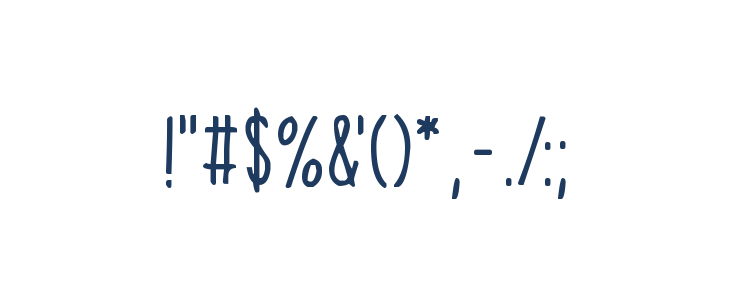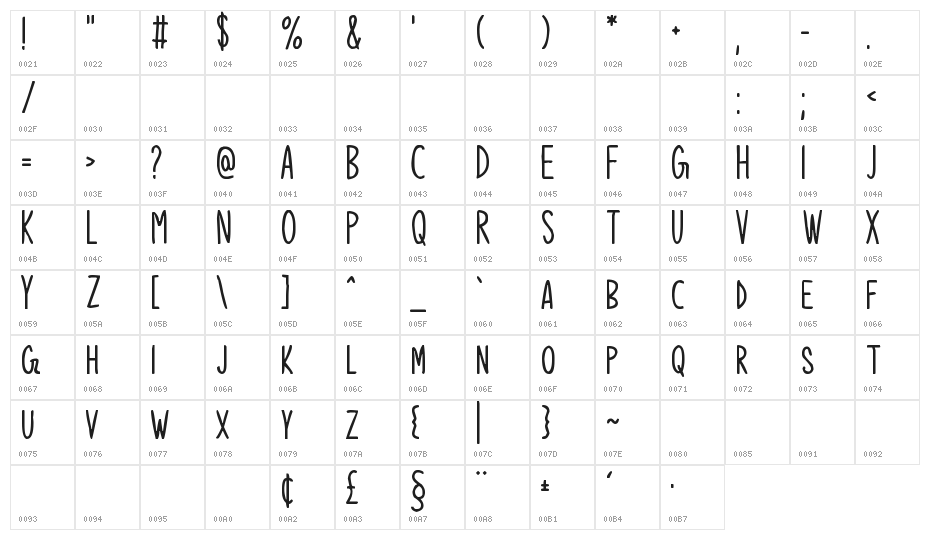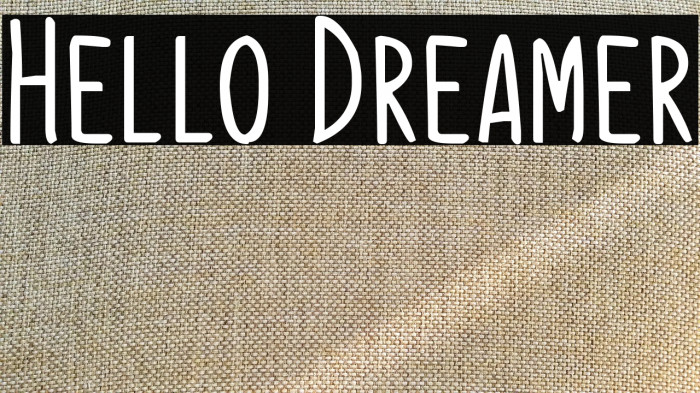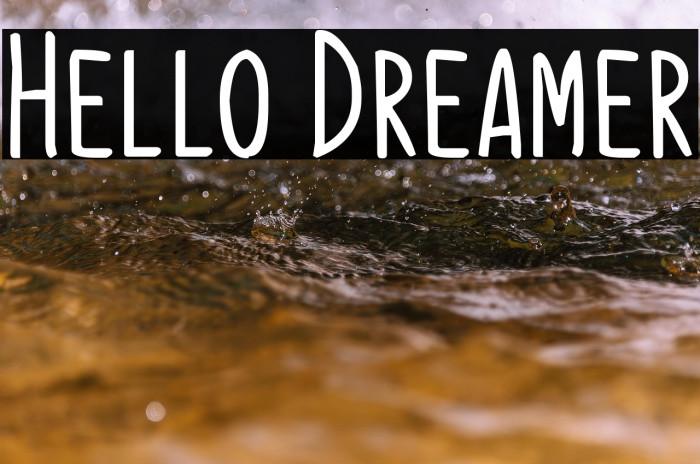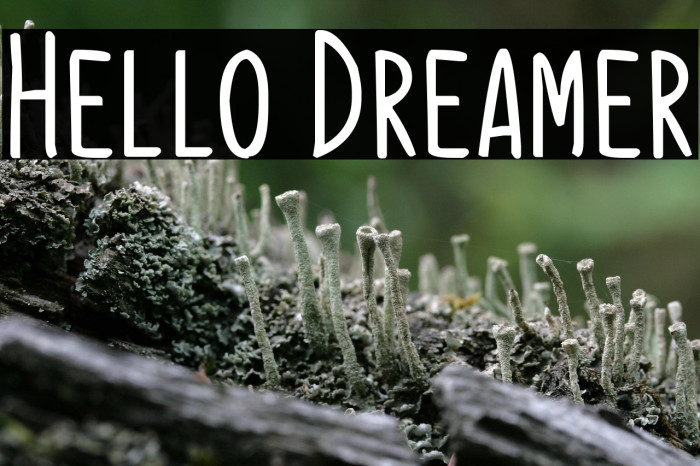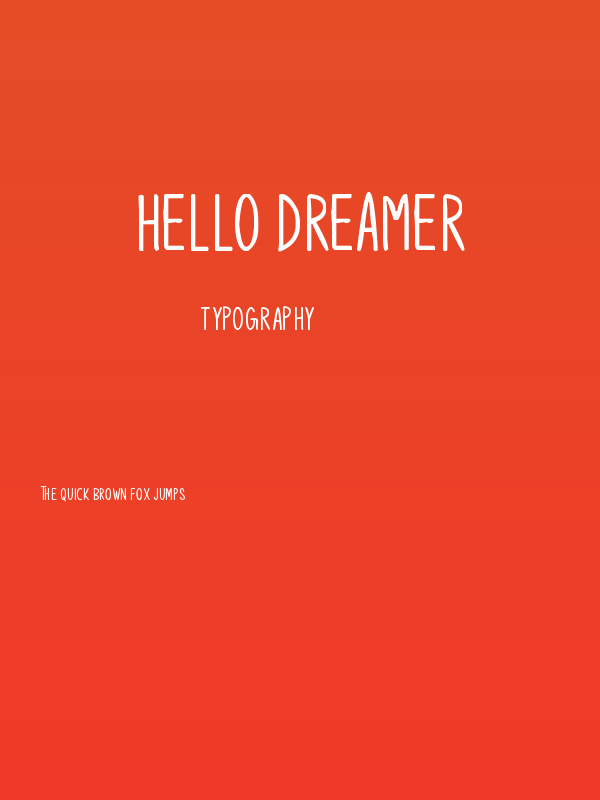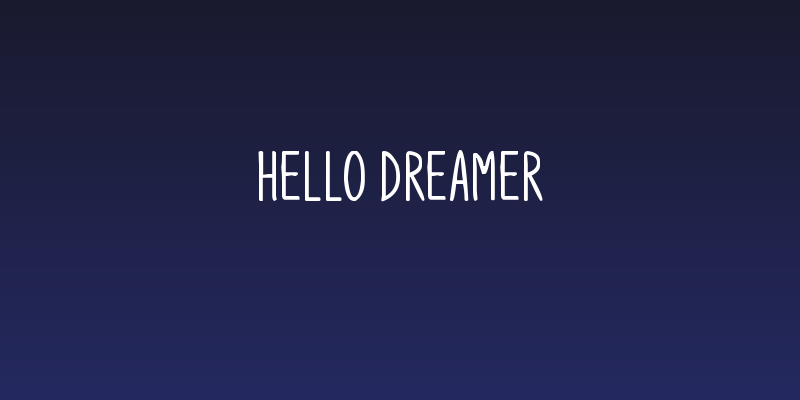
Hello Dreamer Font
Hello Dreamer Description
This font features a playful and whimsical style with tall, narrow letters that have a hand-drawn appearance. The uppercase and lowercase letters maintain a consistent height, giving it a uniform look. The strokes are smooth and slightly irregular, adding to its casual and friendly vibe. The characters are well-spaced, ensuring readability while maintaining a quirky charm. The font includes a full set of uppercase and lowercase letters, numbers, and a variety of special characters, making it versatile for different design needs.
| Proposed Projects | Ideal for children's books, greeting cards, playful branding, and social media graphics. |